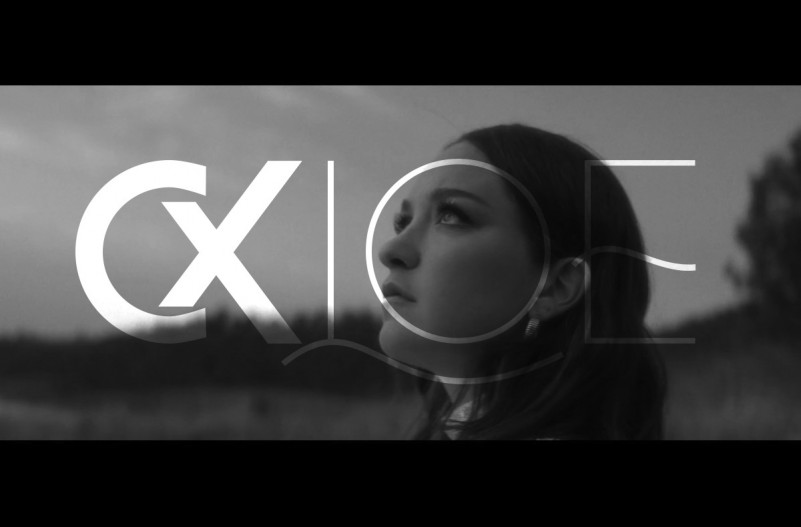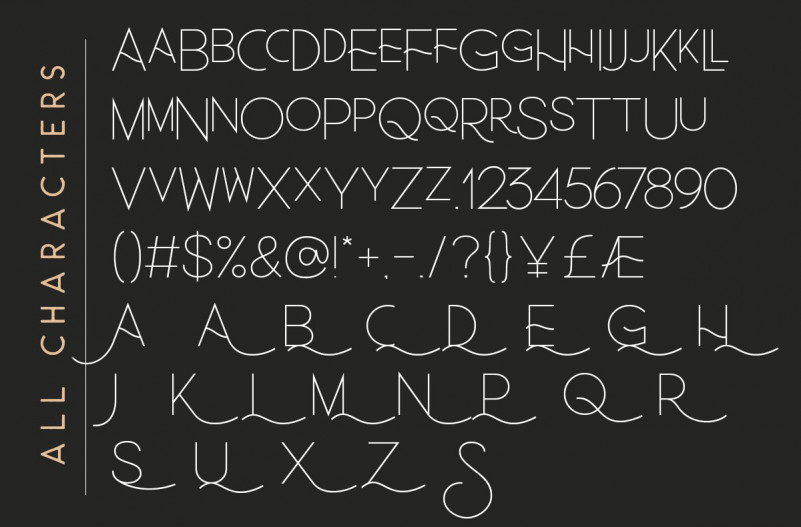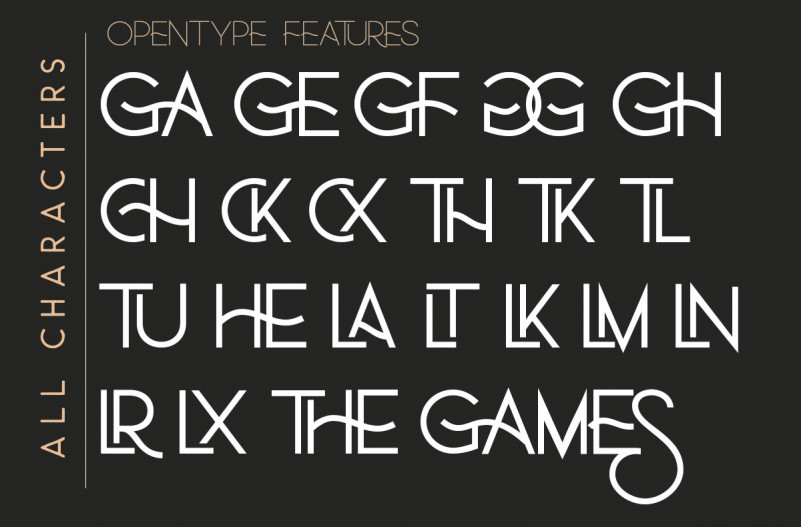
Ch Games Modern Sans Font – Free Demo
Ch Games Font is a modern sans-serif font with 4 weights. It’s a beautiful font, with a tint weight perfect for adding some romance and charm to your designs. This font functions most strongly as a display or headline font. suitable for logo, logotype, branding,wedding, fashion, label, book cover, t-shirt, instagram post, and other